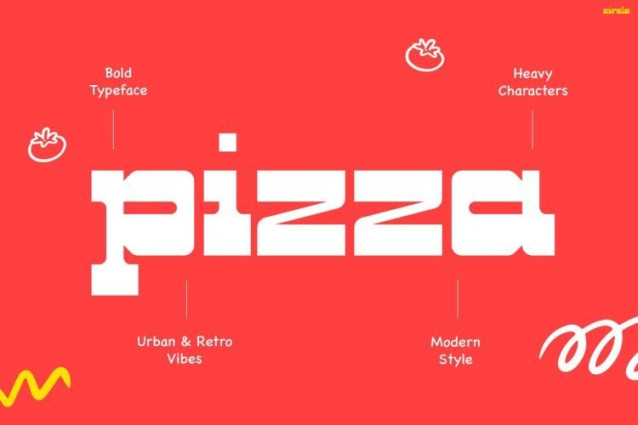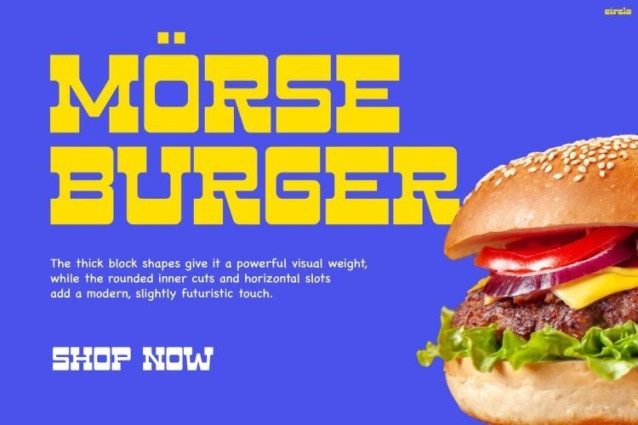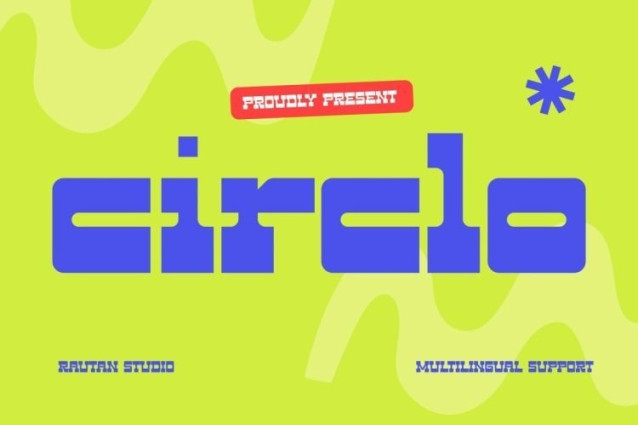
Circlo Font
Circlo Font is a bold, ultra-wide display font that blends heavy slab-serif inspiration with a retro-futuristic, blocky structure. The letterforms feature thick horizontal bars, chunky squared serifs, and distinctive rounded inner cuts that give the characters a punchy, mechanical feel.
Best suited to food packaging, restaurant signage, fast-casual dining menus, product labels, and bold poster designs. Its heavy presence makes it a natural choice for headlines, apparel graphics, and promotional banners where maximum visual weight is required.